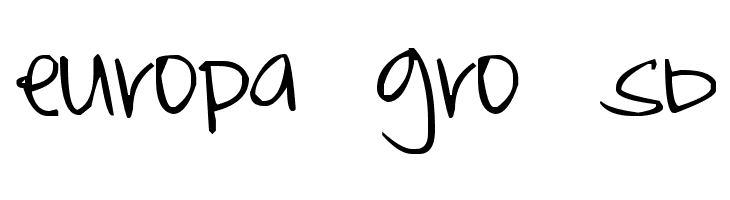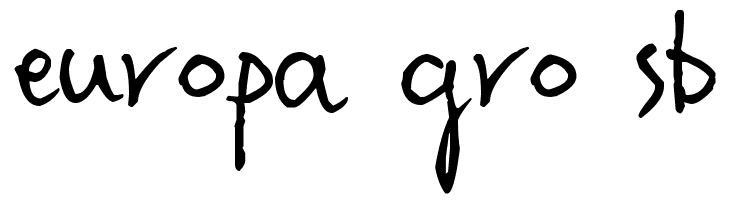
A playful, casual handwritten font with loose, flowing strokes.
A playful, casual handwritten font with irregular, free-flowing letterforms.
A playful, casual handwritten font with loose, flowing strokes.
A playful, casual handwritten font with irregular strokes and a whimsical style.
A playful, casual handwritten font with a loose, flowing style.
A playful handwritten font with bold, irregular strokes and a whimsical style.
A bold, handwritten font with a playful and casual style.
A casual, playful handwritten font with a dynamic and spontaneous style.
A playful, casual handwritten font with uneven strokes and a friendly appearance.
A playful, casual handwritten font with bold, irregular strokes.
A playful, handwritten font with an informal and whimsical style.
A playful, casual handwritten font with a lively and informal style.
A playful, whimsical handwritten font with thin, flowing lines.
A playful, casual handwritten font with irregular strokes and a spontaneous feel.
A playful, handwritten font with dynamic and fluid strokes.
A bold, playful handwritten font with expressive strokes and a casual feel.
A playful, casual handwritten font with a natural, personal touch.
A lively handwritten font with a casual, dynamic style.
A playful, casual handwritten font with a friendly and informal style.
A playful, casual handwritten font with a personal touch.
A playful, informal handwritten font with a whimsical and personal touch.
A playful, handwritten font with a casual and dynamic style.
A playful, casual handwritten font with bold strokes and a lively appearance.
A playful, casual handwritten font with uneven strokes.
A casual, playful handwritten font with loose, flowing strokes.
A playful and casual handwritten font with a whimsical touch.
A playful, casual handwritten font with dynamic strokes and an organic flow.
A playful, handwritten font with an informal and friendly style.
A playful, handwritten font with irregular, spontaneous strokes.
A playful, casual handwritten font with uneven strokes and a relaxed style.
A playful, casual handwritten font with flowing strokes and a lively aesthetic.